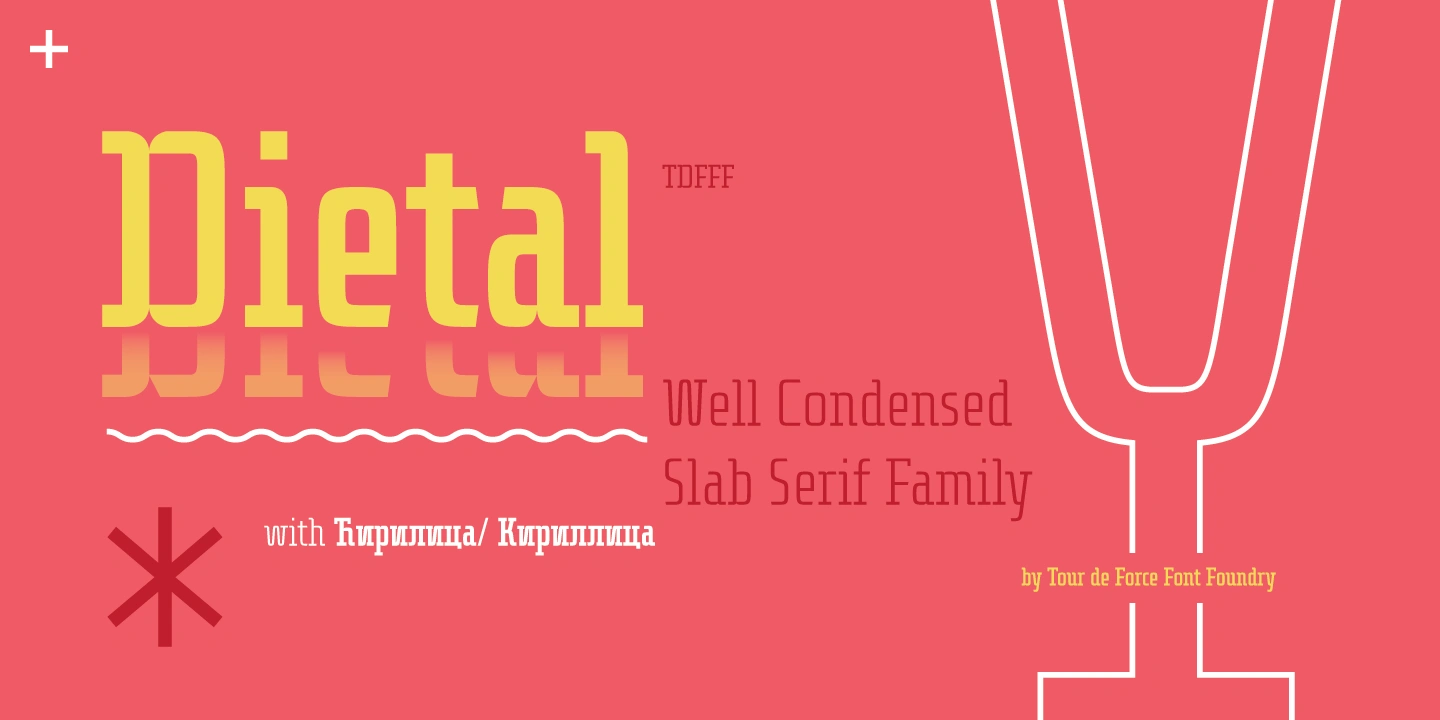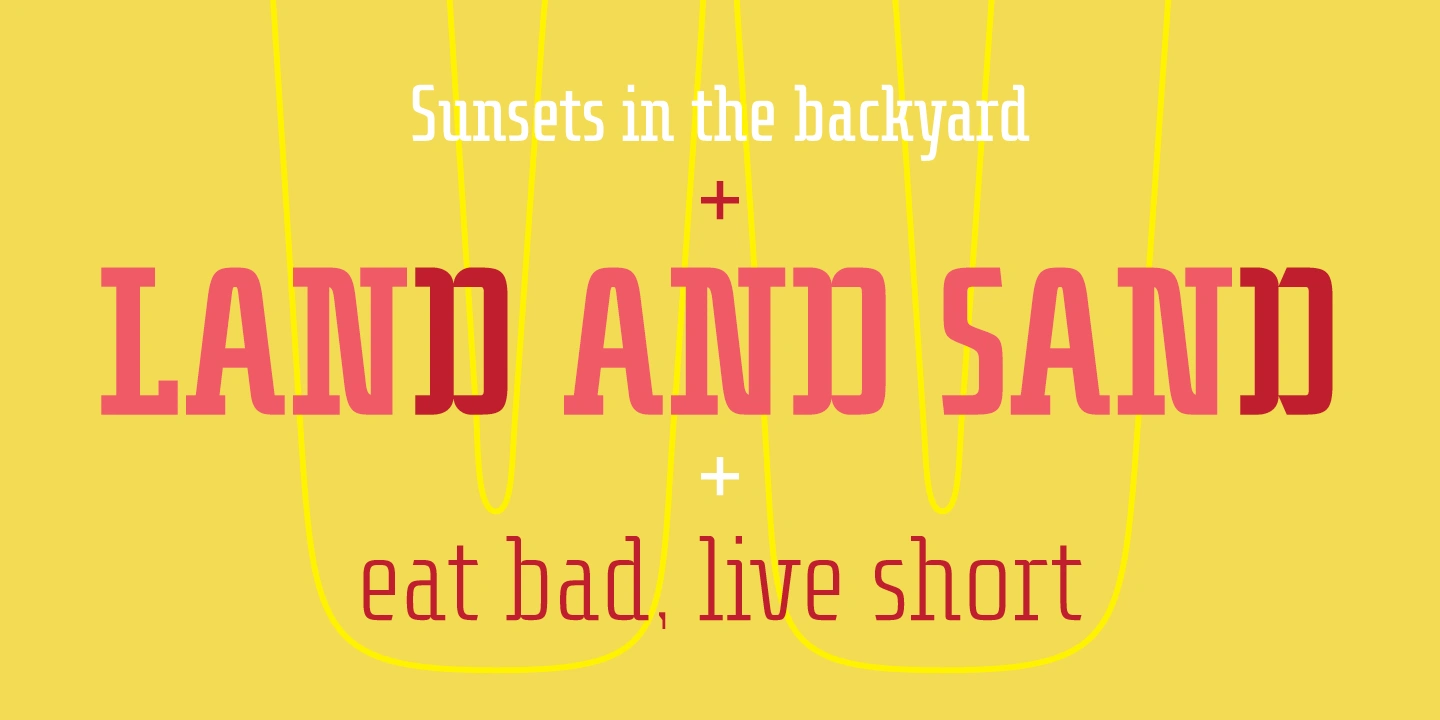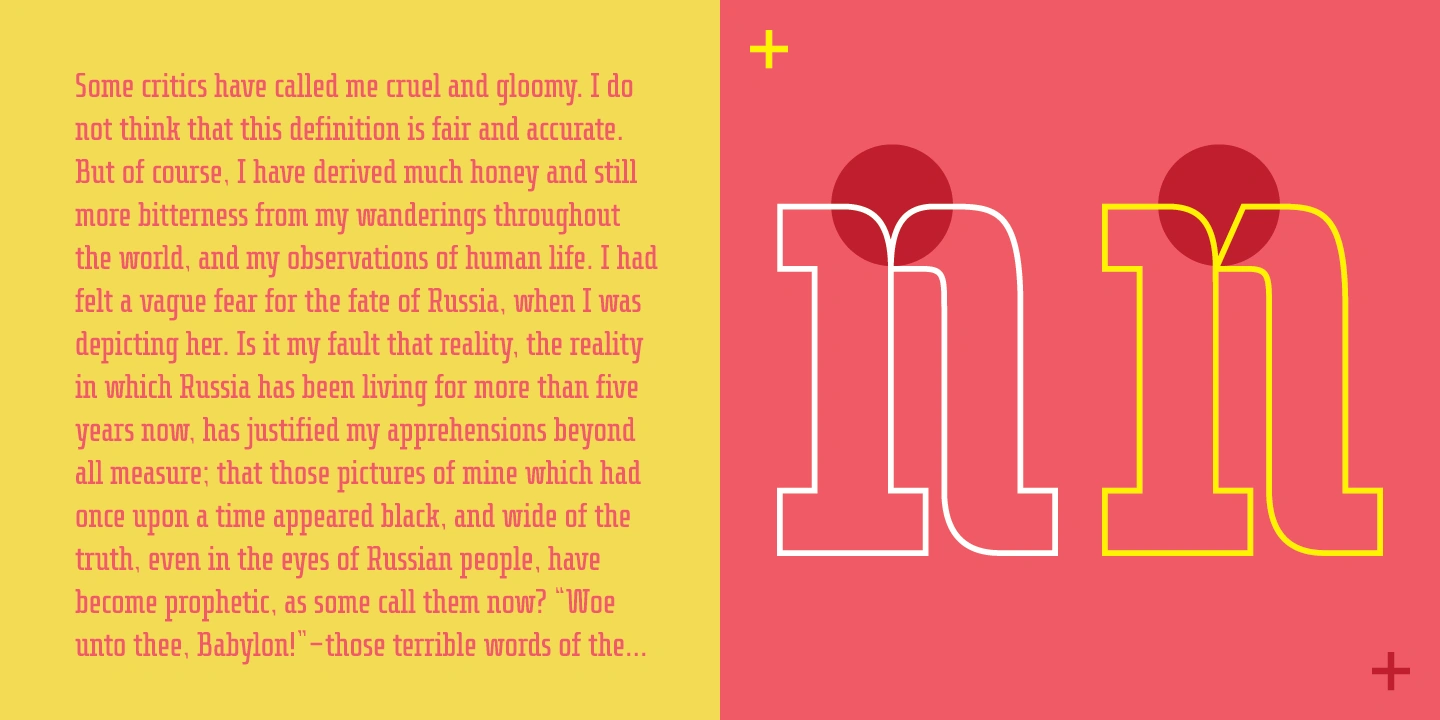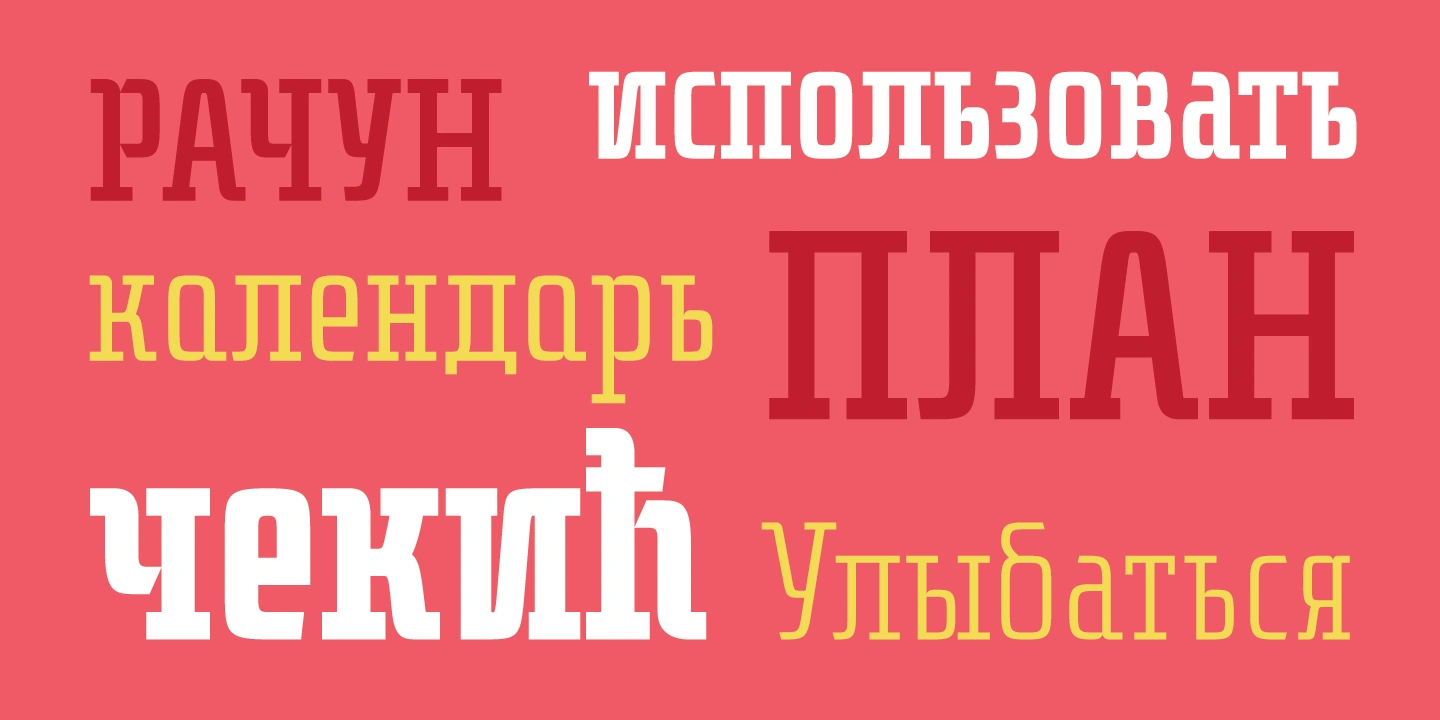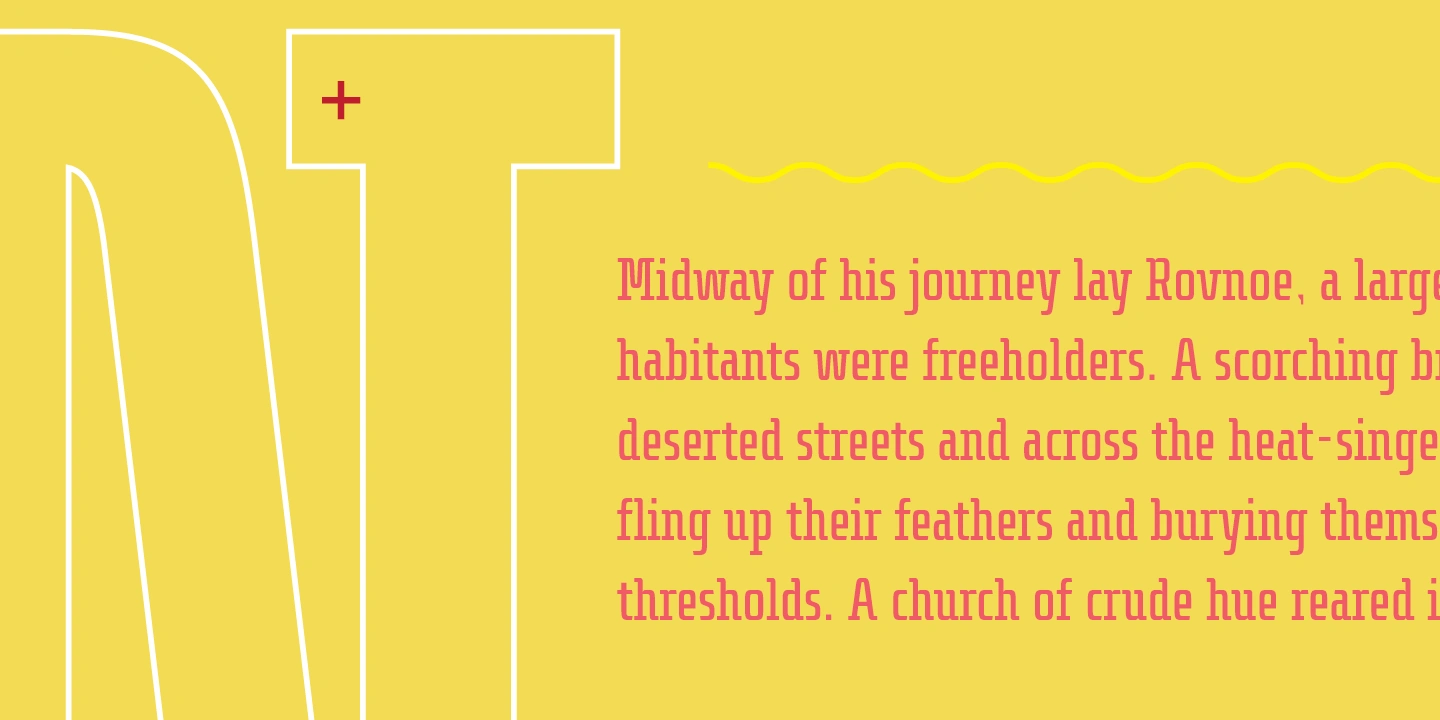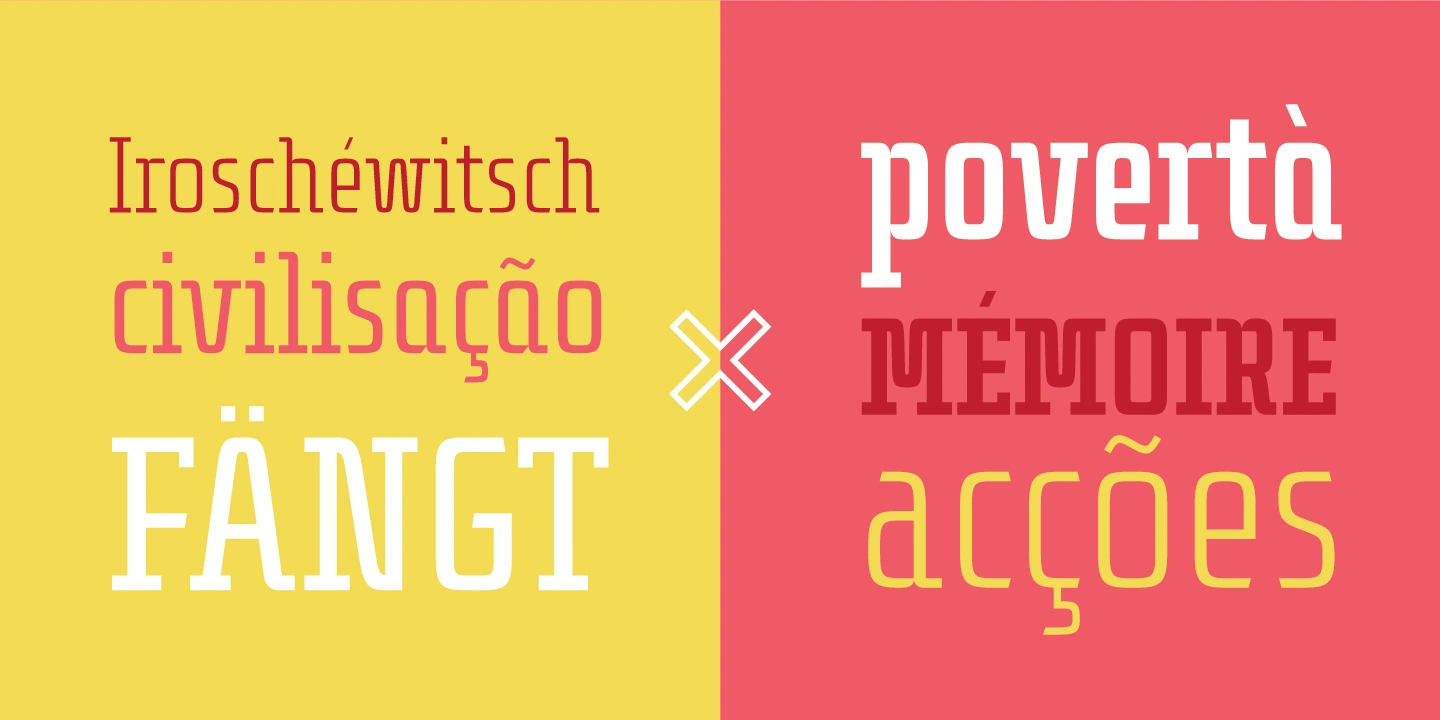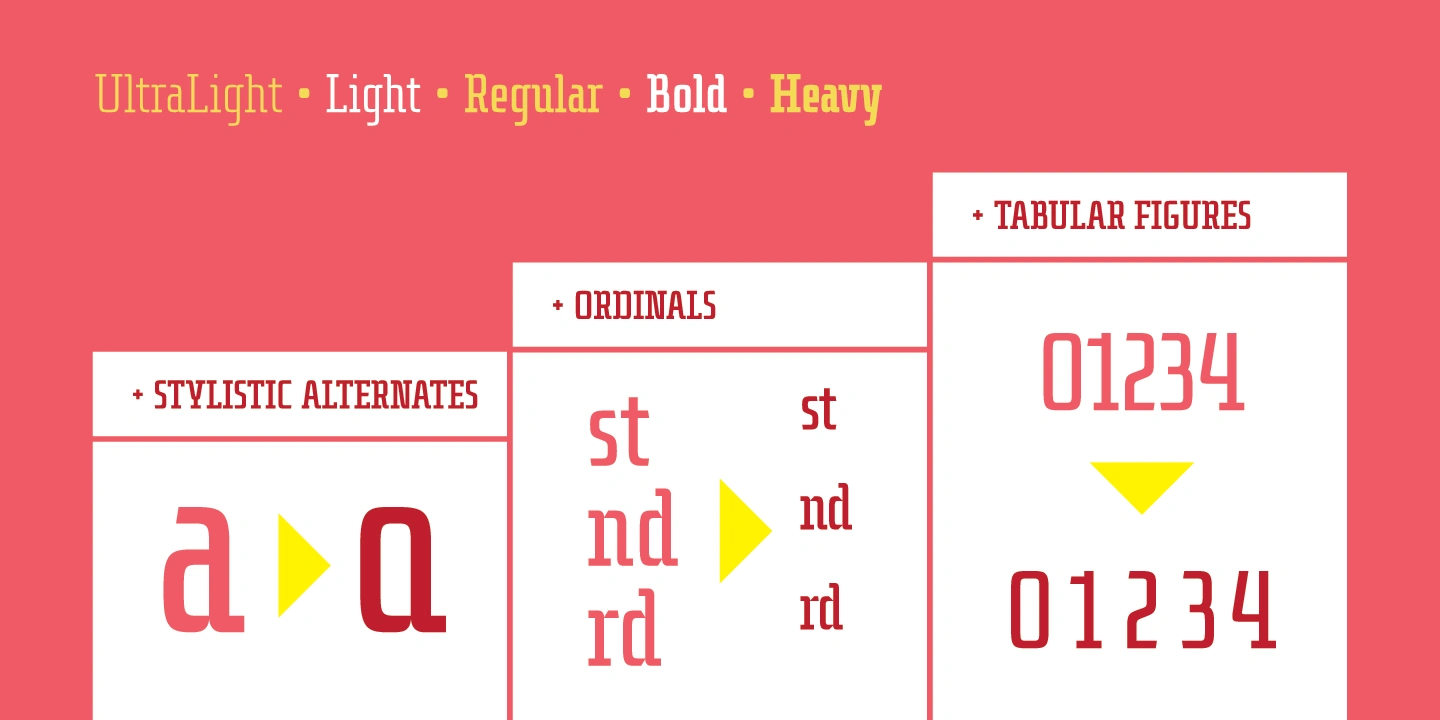
Dietal is condensed slab serif family that comes in 5 weights.
Dietal is condensed slab serif family that comes in 5 weights. Dietal coquettes with different type categories from sans and slab to calligraphy, western and display elements. It is available in two versions: with curved and sharp joining.
Contains Stylistic Alternates, Ordinals and Tabular Figures as Open Type Features in Extended Latin and Cyrillic character set.